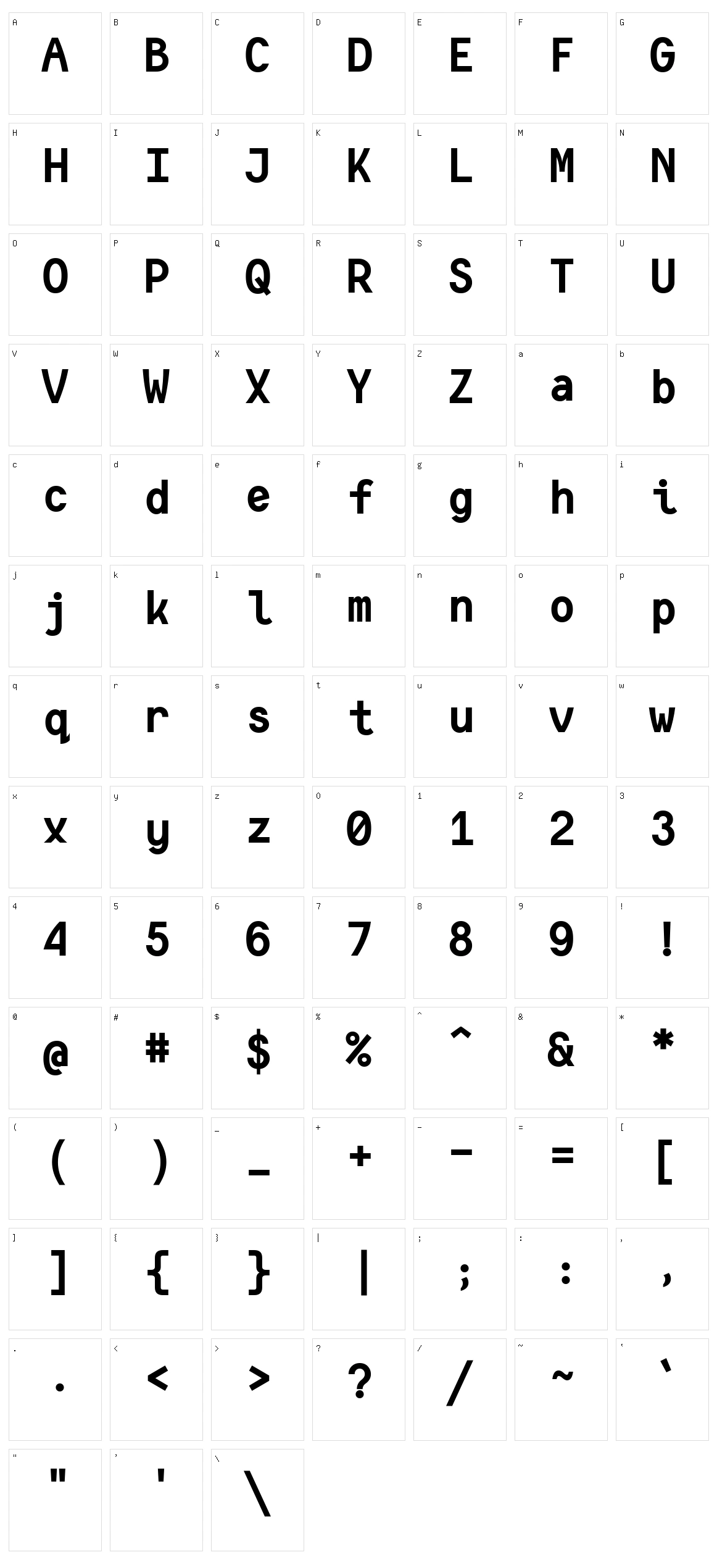
"Consola Mono" is the monospace font especially created for programming,
text editors and for terminal-use.
"Consola Mono" is a Unicode typeface font that supports all languages that
use the Latin, Greek, Cyrillic script and its variants, and could be expanded
to support other scripts.
- Added missing glyphs to Pan African Latin set.
- Improved some glyphs.
- "Consola Mono Bold" - fixed a bug with different width
of glyphs:
028B - SMALL LETTER V WITH HOOK
03B0 - GREEK SMALL LETTER UPSILON WITH DIALYTIKA AND TONOS
03C5 - GREEK SMALL LETTER UPSILON
03CB - GREEK SMALL LETTER UPSILON WITH DIALYTIKA
03CD - GREEK SMALL LETTER UPSILON WITH TONOS
- added bold version - "ConsolaMono-Bold". It supports all of Unicode Ranges as
"ConsolaMono" do, and it is fully compatible to "ConsolaMono".
I left the same number of version, cause I didn"t any changes
with "ConsolaMono".
- all glyphs redesigned - I did all glyphs more rounded
- fixed some issues with metadata
- made all missing glyphs for IPA Extensions
- added some glyphs for Spacing Modified Letters
- Changed shape of "f","t", and all glyphs based on these letters
(ligatures too).
- made all missing glyphs for Latin Extended B, Cyrillic, Cyrillic Supplement.
- Initial release
It"s my old unfinnished font. I made some sketches of several glyphs 5-6 years
ago, and I never finnished this. Now I made missing glyphs, did changes of some
glyphs and turn into monospaced font.